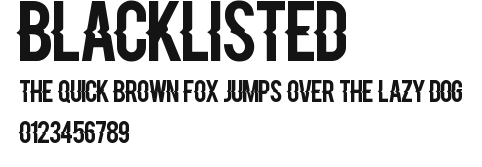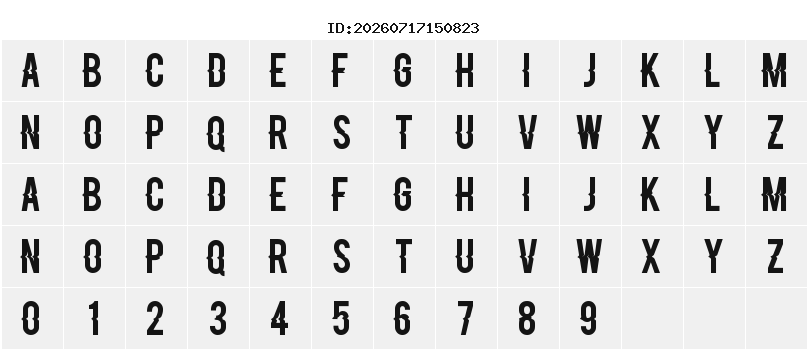
Blacklisted Preview
• Font Name: Blacklisted
• Full Font Name: Blacklisted
About Blacklisted.ttf
Blacklisted.ttf is a modern, elegant sans-serif font designed for ultimate readability and visual harmony. Perfect for branding, headlines, web design, and print materials.